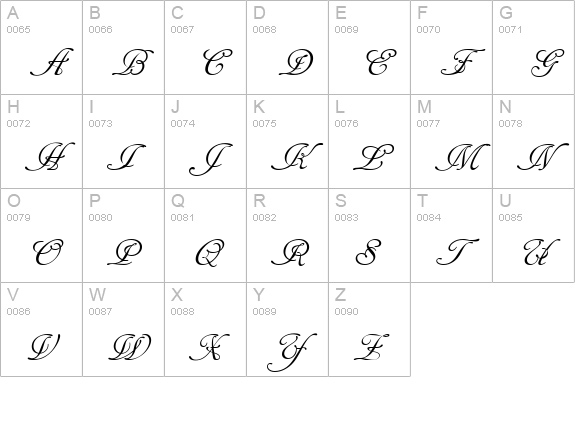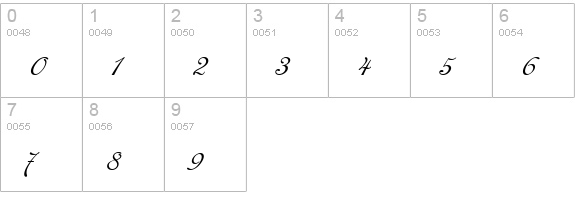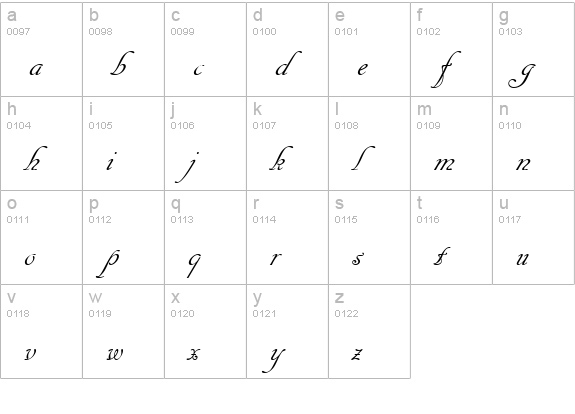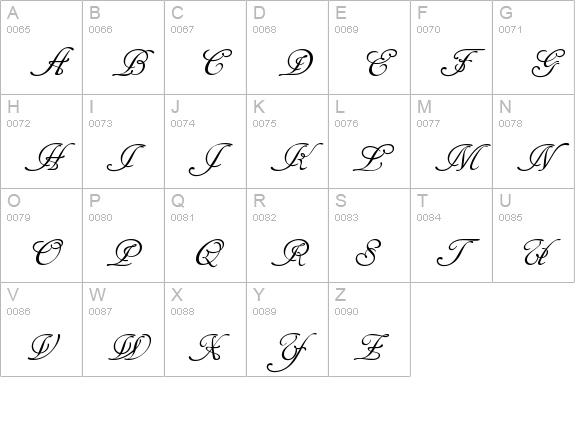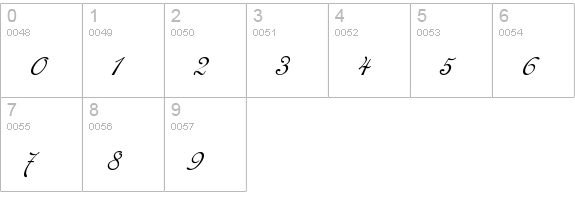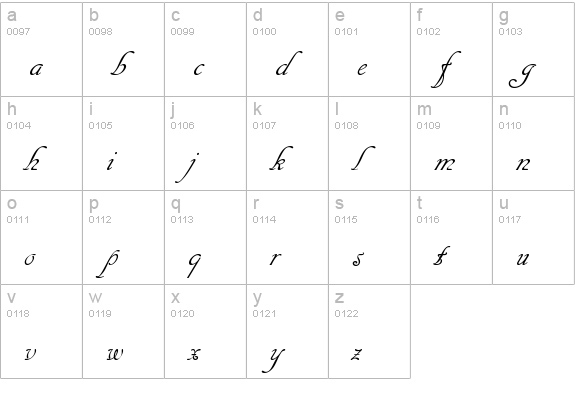
Cancellaresca Script Plain Font Details
Cancellaresca Script Plain is a stunning and elegant font that exudes sophistication and charm. Its classic and timeless design makes it perfect for a wide range of projects, from wedding invitations to branding materials. The smooth curves and intricate details of this script font give it a luxurious and high-end feel. The best part is that Cancellaresca Script Plain is completely free to download at FontsMarket.com. You can easily enhance your designs with this beautiful font without any cost. Whether you're a designer looking to add a touch of elegance to your work or someone looking for a stylish font for personal projects, Cancellaresca Script Plain is the perfect choice. Download it today and elevate your designs with this exquisite typeface.